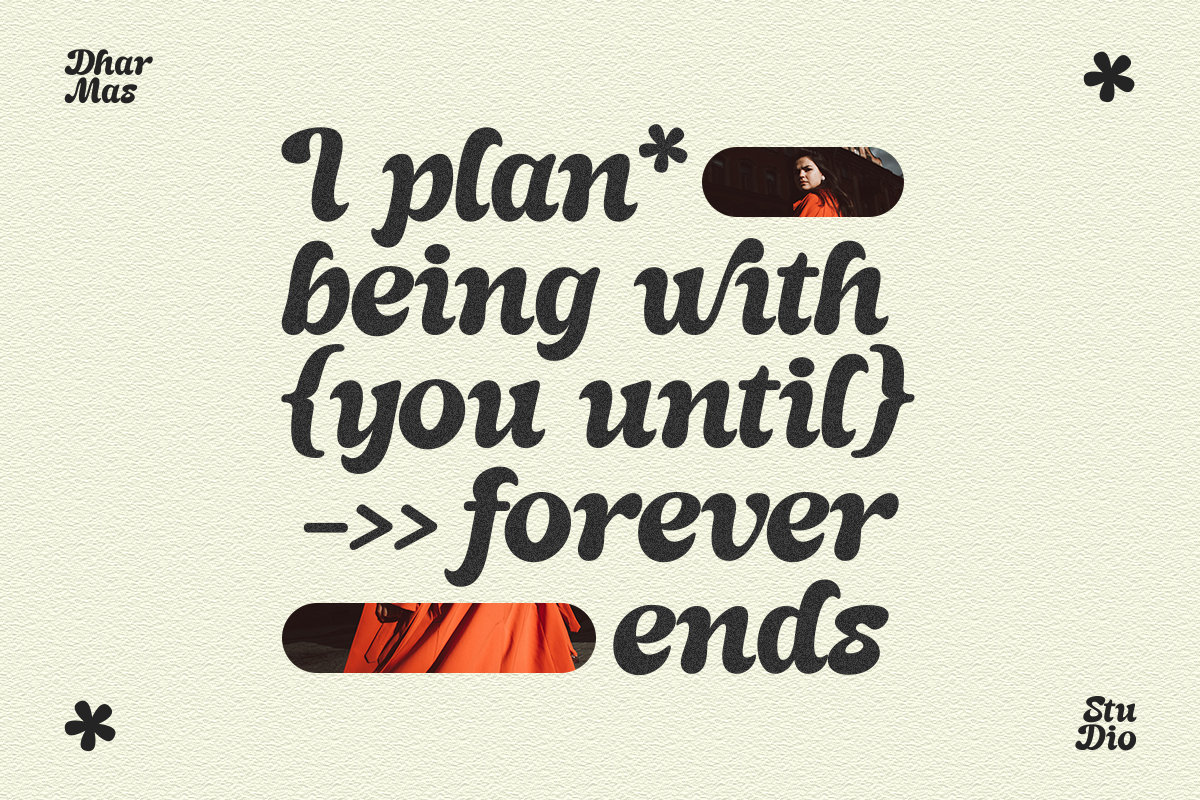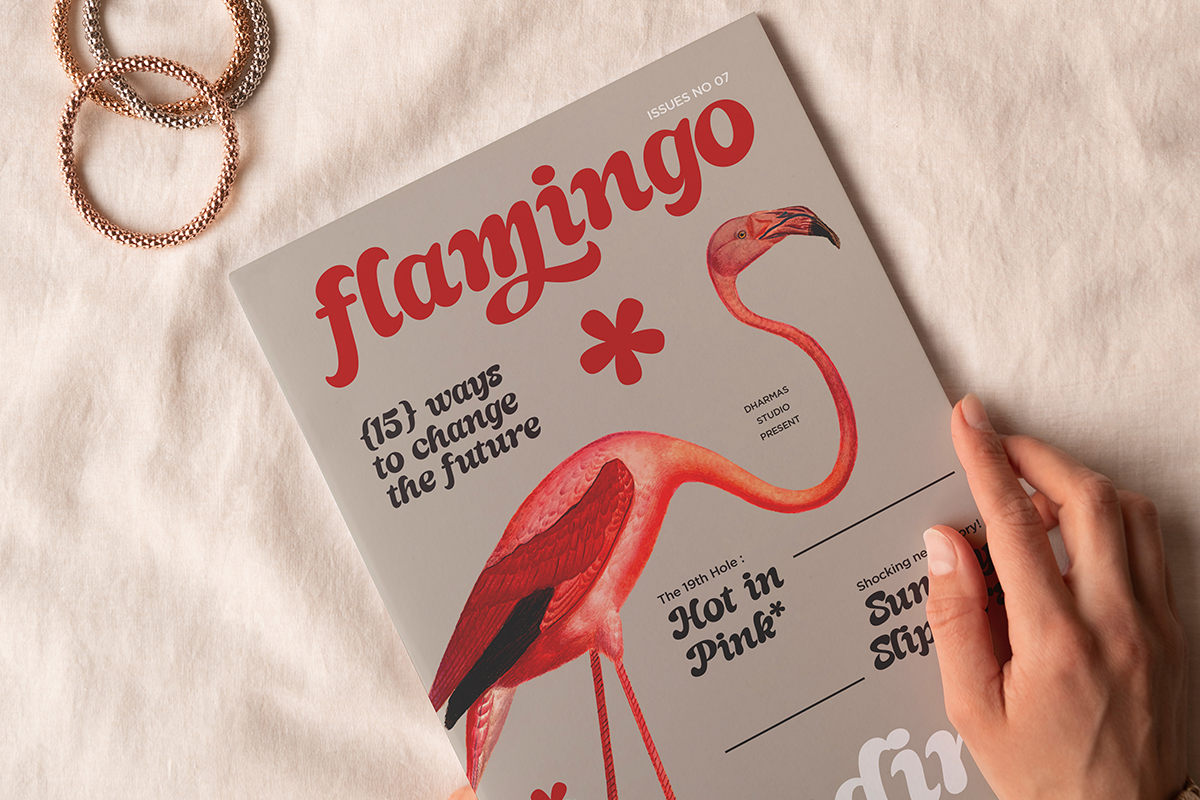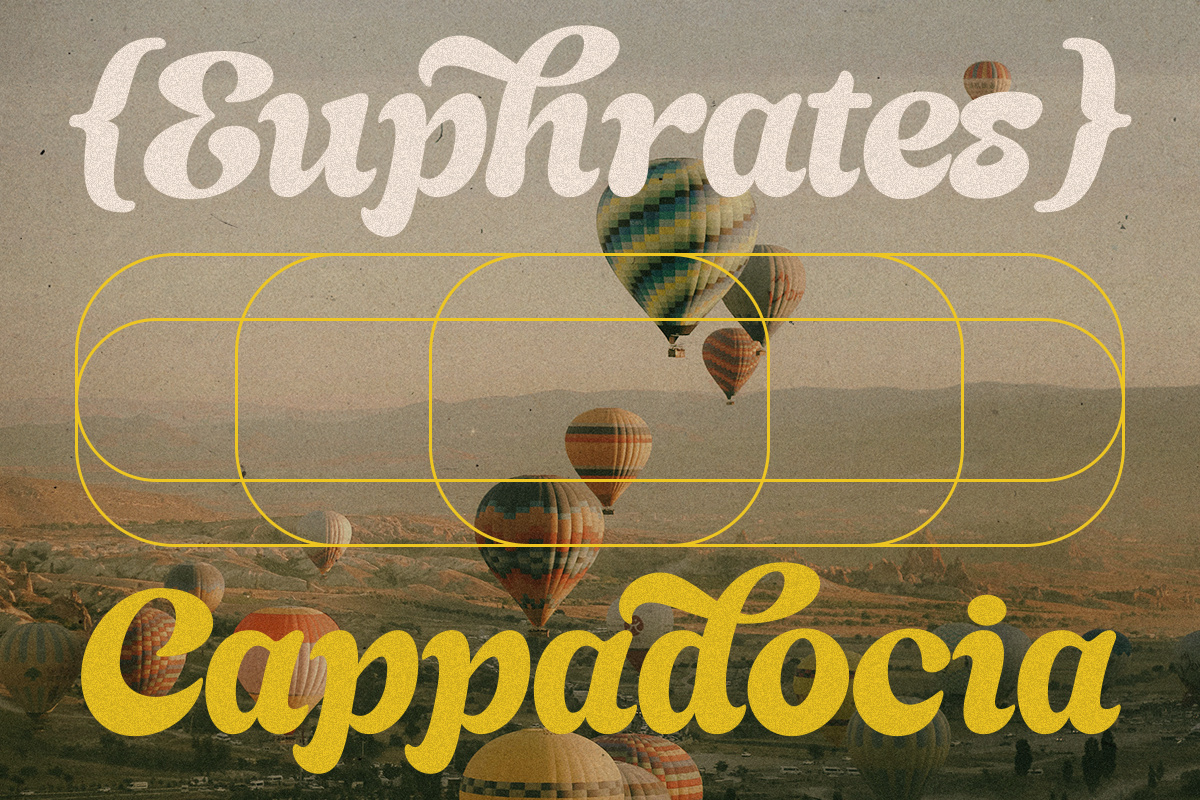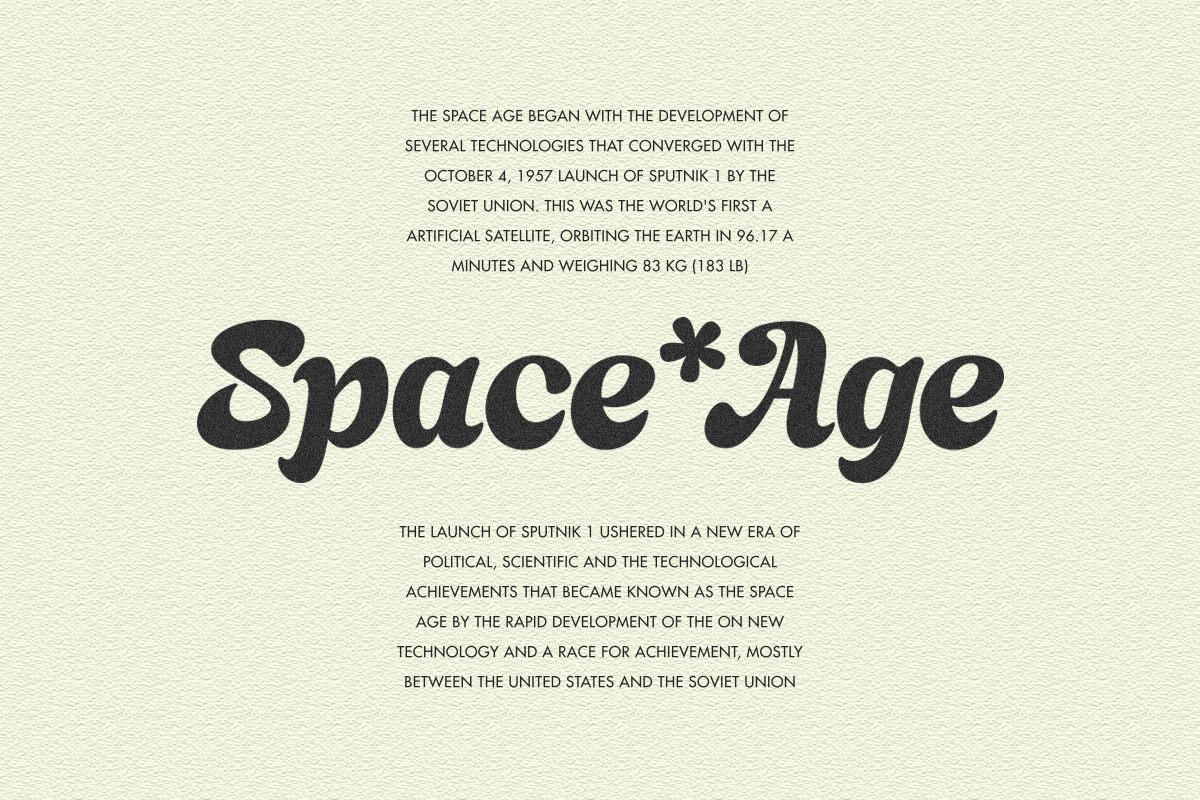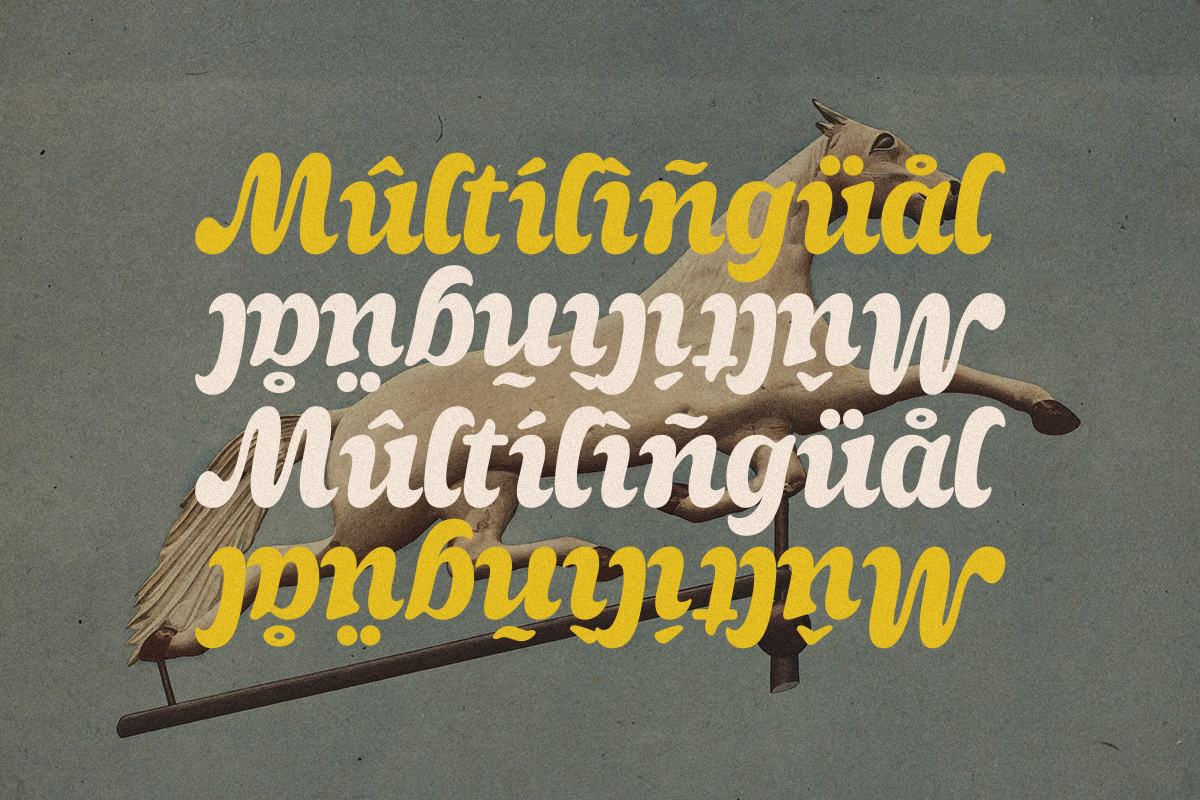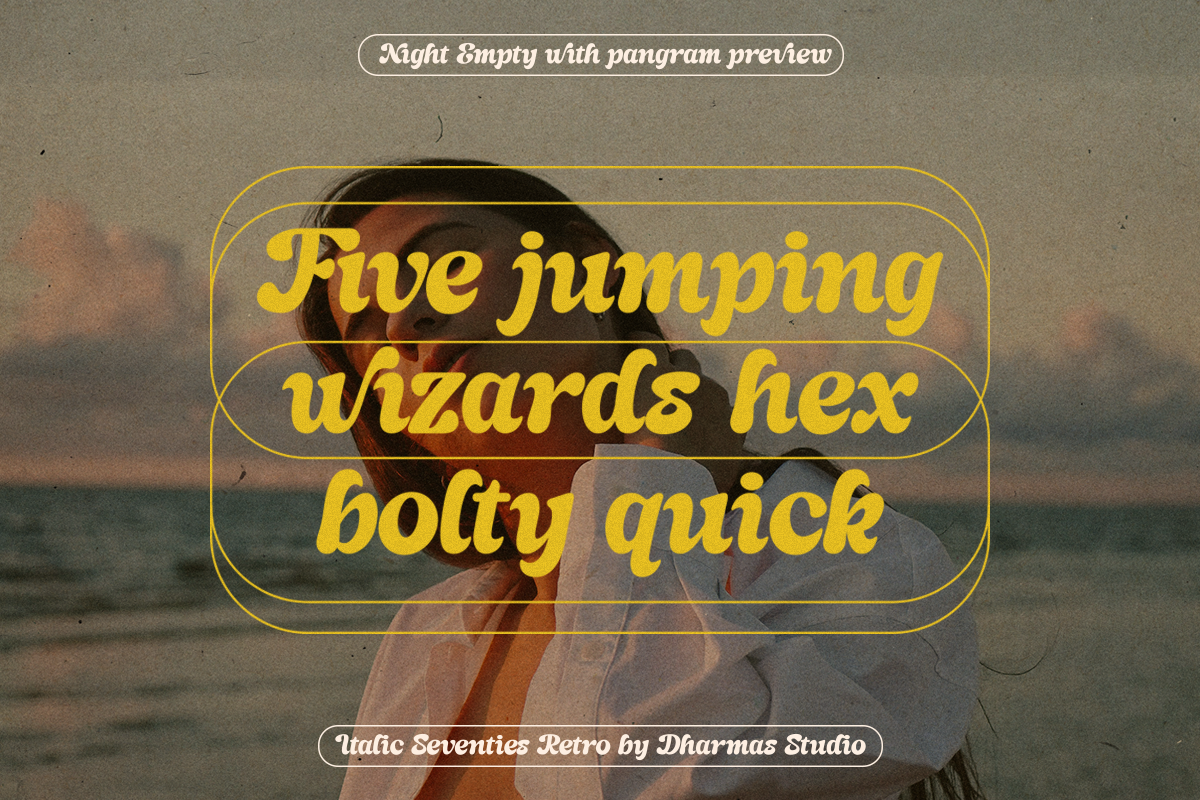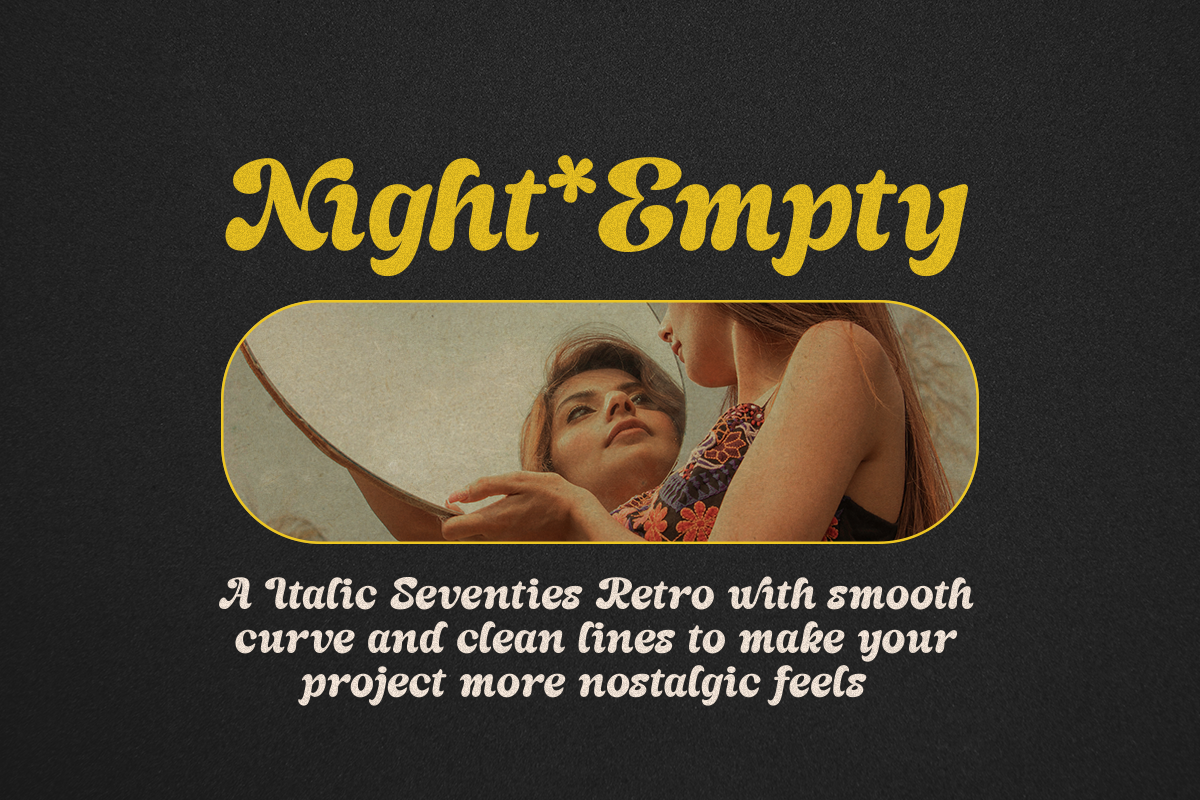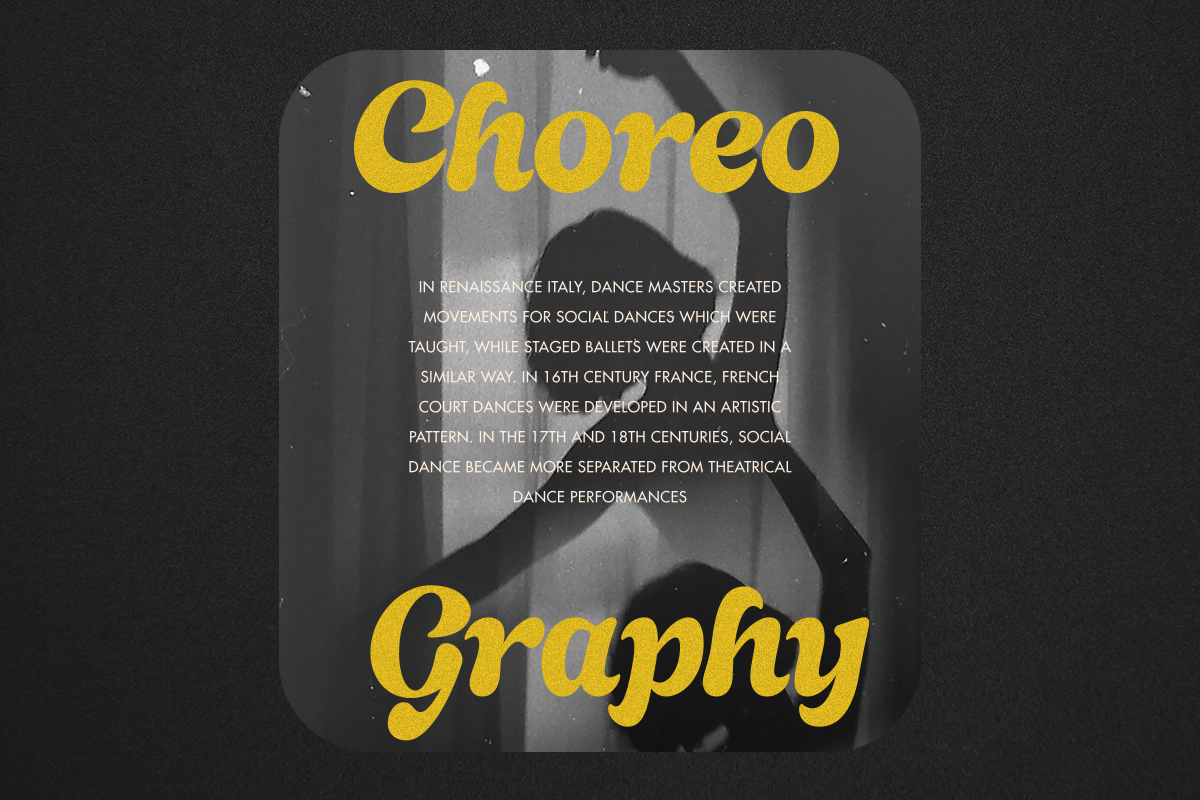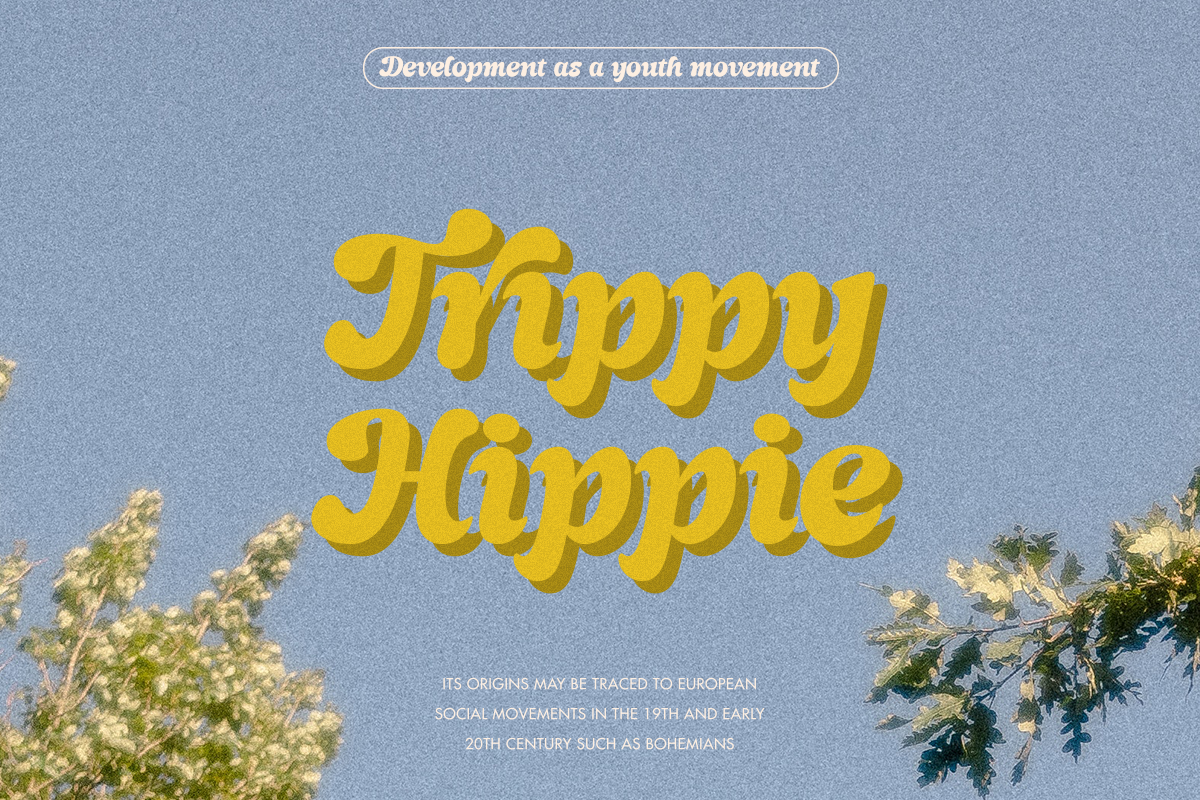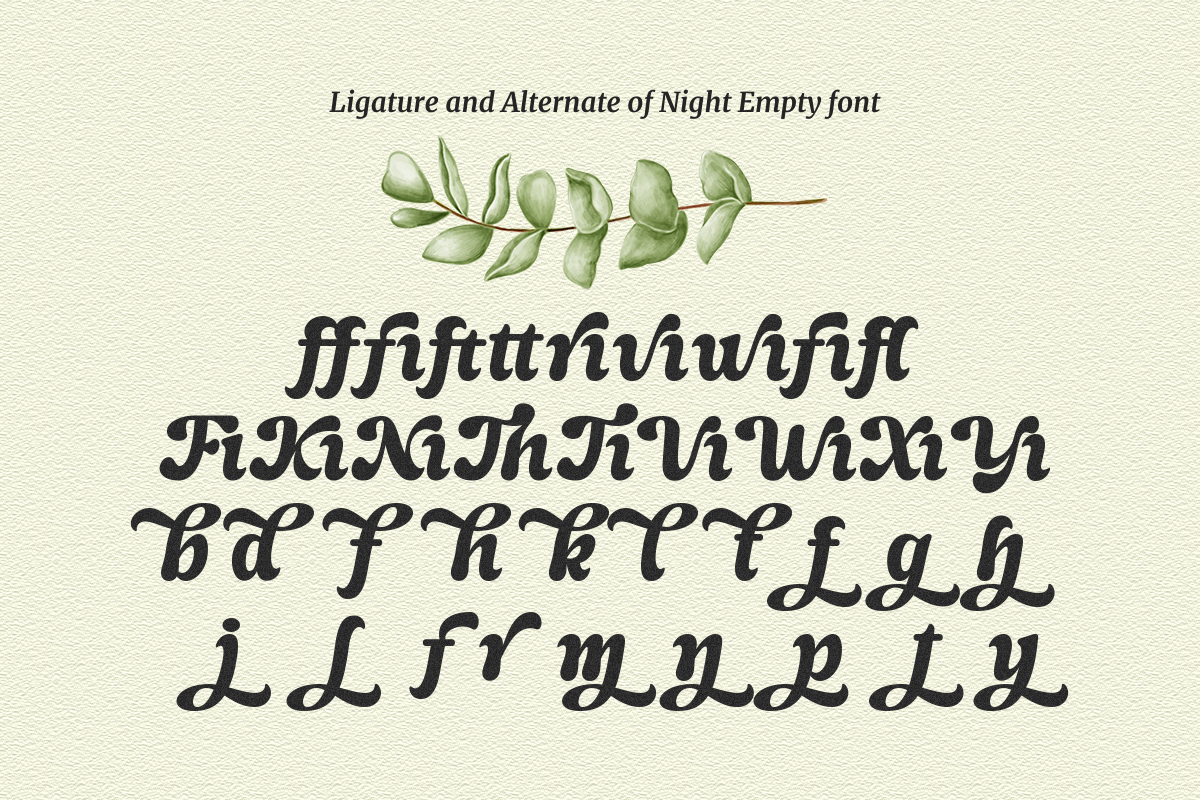
Night Empty - Italic Seventies Retro
We're presenting our new italic seventies retro font, Night Empty!
Night Empty - A Italic Seventies Retro that has both retro and soft bold italic. This font has a smooth curves and clean lines to make your project more nostalgic feels. This font will make your project looks retro, chic, and presentable.
Night Empty - Have 37 beautiful alternates and ligatures which consist of 4 stylistic sets. Comes with alternatives and ligatures, and helps to create stunning logos, quotes, posts, blog posts, branding projects, magazine imagery, wedding invitations, and much more.
Super-versatile, have a scroll through all the previews to see how wide the range of uses that can be with Night Empty, it's so limitless!
Has 37 beautiful alternates and ligatures